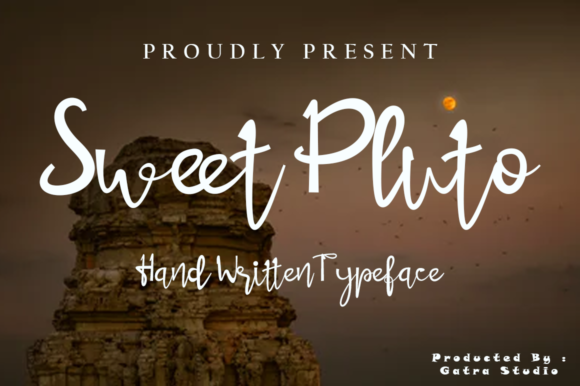
Behold, a font that exudes charm, playfulness, and a touch of whimsy - Sweet Pluto! Imagine a font that dances along the baseline, adding a dash of magic to your creative endeavors. This script font, crafted by the talented Gatra Std., is specifically designed to make your creations shine in the world of display boards.
Whether you're a seasoned designer or just starting your journey, Sweet Pluto is the perfect companion for capturing attention and conveying messages in a unique and captivating way. Its playful characters bring a sense of joy and lightheartedness to any project, adding a personal touch that resonates with audiences.
Step into a world of limitless possibilities with Sweet Pluto. Create stunning posters that draw eyes from across the room, captivating social media posts that spark engagement, or eye-catching website headers that leave a lasting impression. This font is your secret weapon for creating designs that captivate, inspire, and leave an unforgettable mark.
But Sweet Pluto isn't just about aesthetics; it's also remarkably versatile, adapting effortlessly to a wide range of applications. Whether you're designing for print or digital platforms, this font delivers crisp, clean lines that ensure your messages are crystal clear and impactful.
Experience the transformative power of Sweet Pluto today and watch your creative projects soar to new heights. Let this charming script font add a touch of magic to your designs, leaving your audience spellbound and eager to discover more.